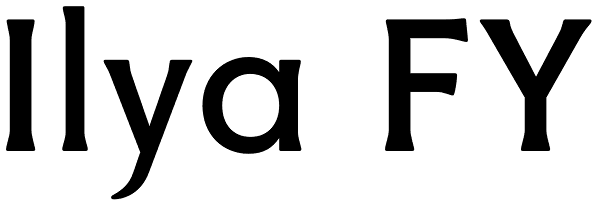
Ilya FY
With its soft and triangular serifs and its round shapes, Ilya FY is a friendly and gentle display font. Its tall ascendants and descendants, single storey a, generous uppercases and other nice details give Ilya FY a singular look if you need a...